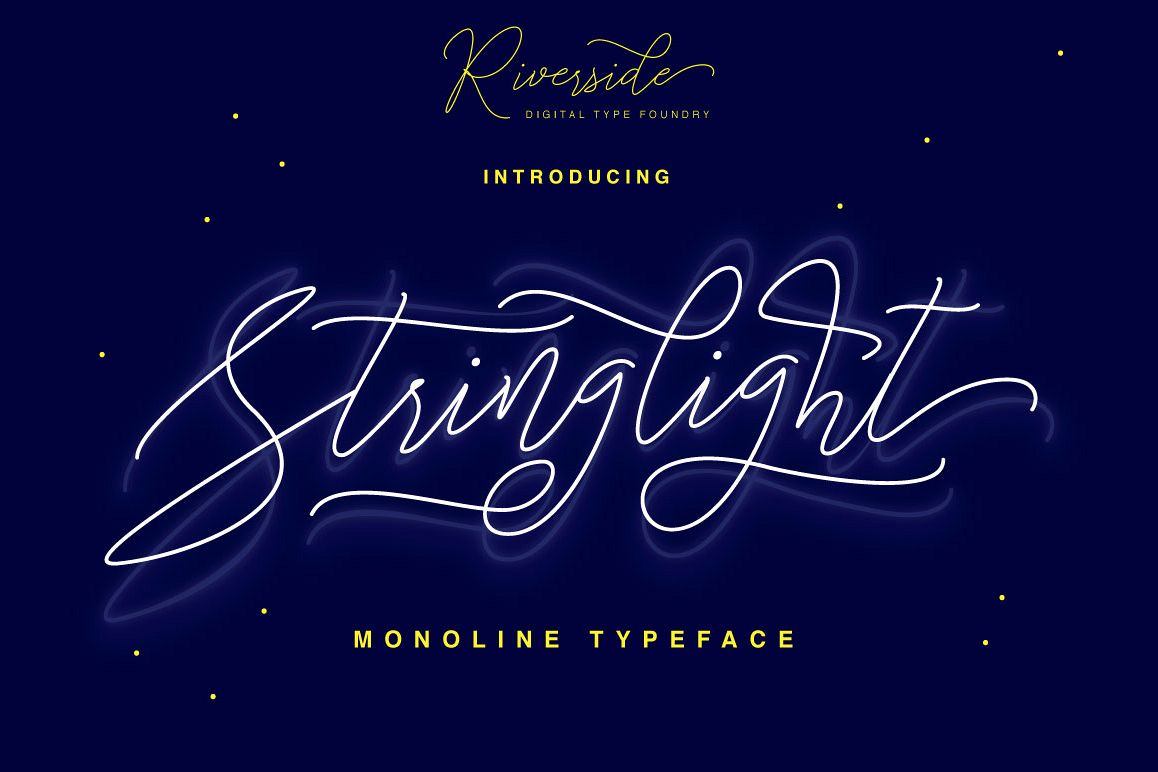
Stringlight Typeface
Introducing Stringlight Typeface
Stringlight Typeface are Monoline Script Typeface with amazing character & a multitude of letter variations to make that perfect and unique design. Ideal for a logo, a name tag, handwritten quotations, product packaging, goods, social media and greeting cards.
Stringlight Typeface
By Riverside Digital Type Foundry